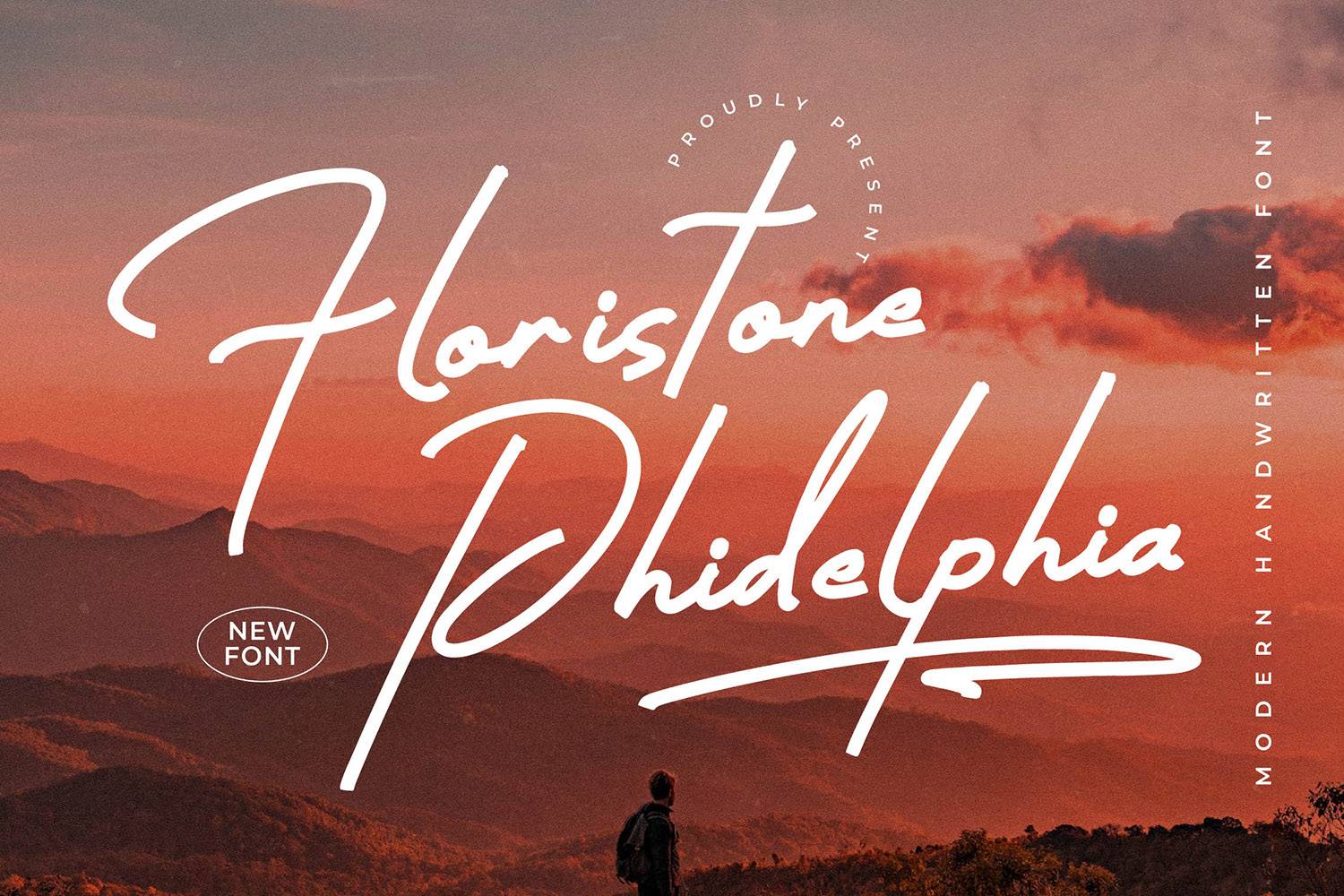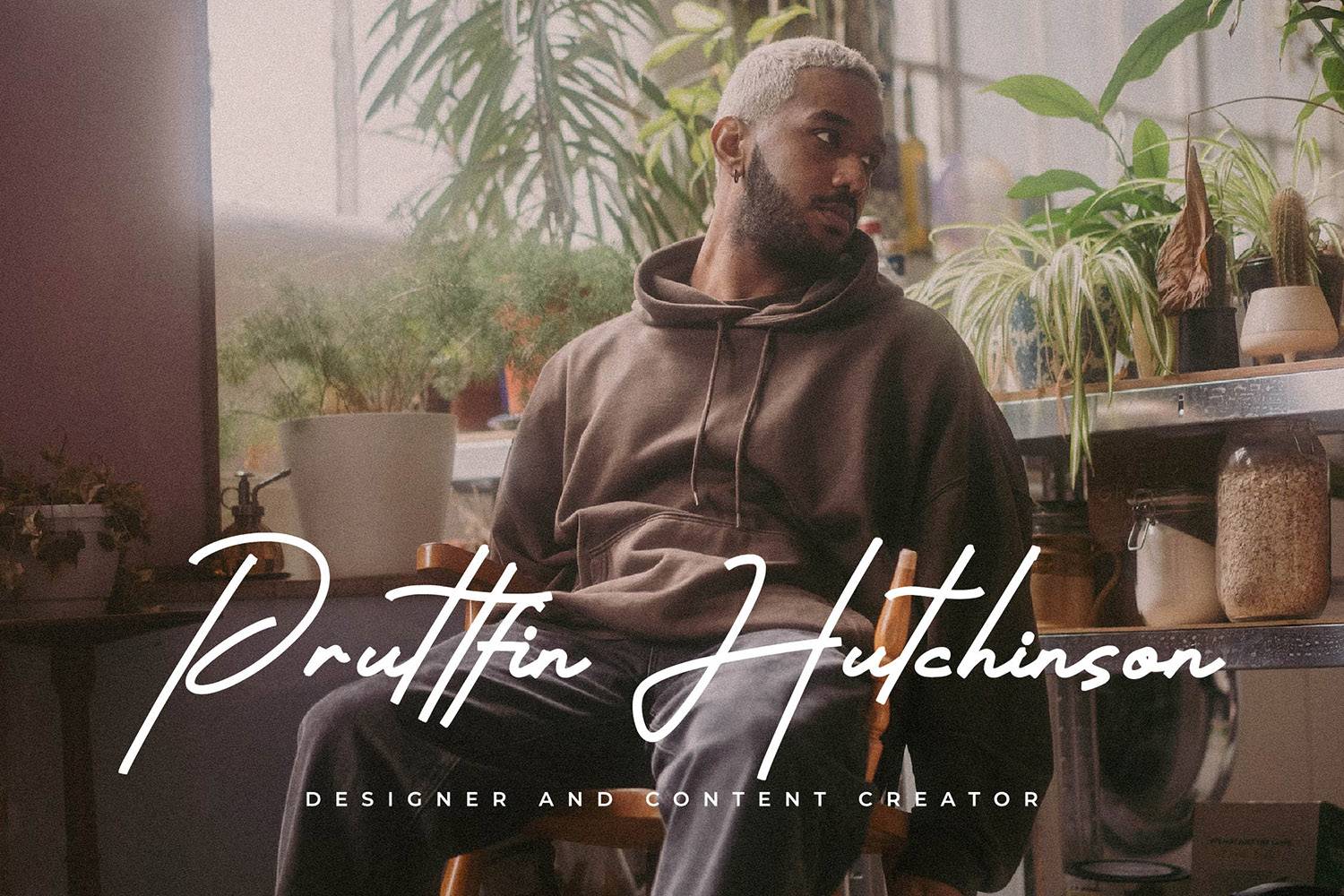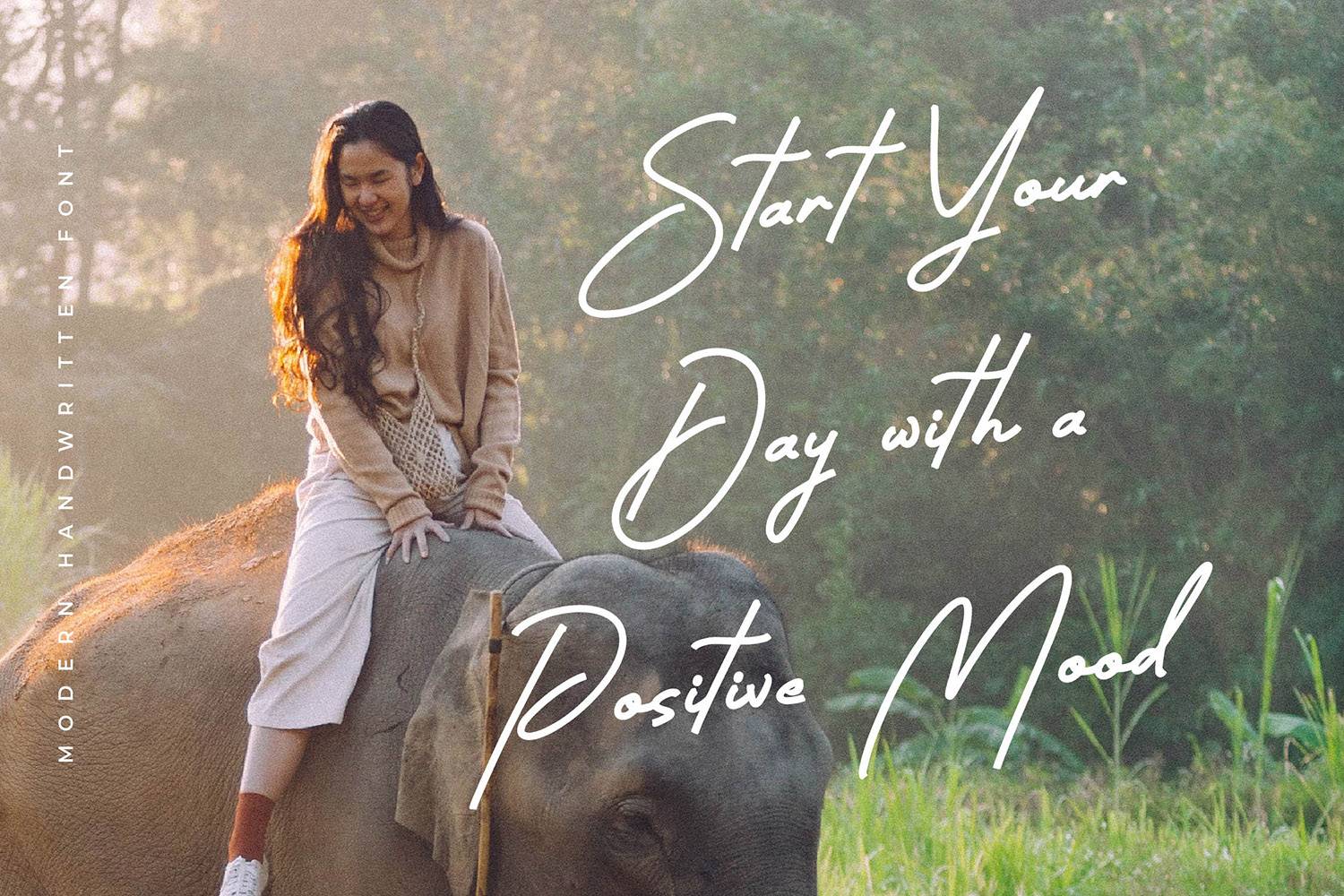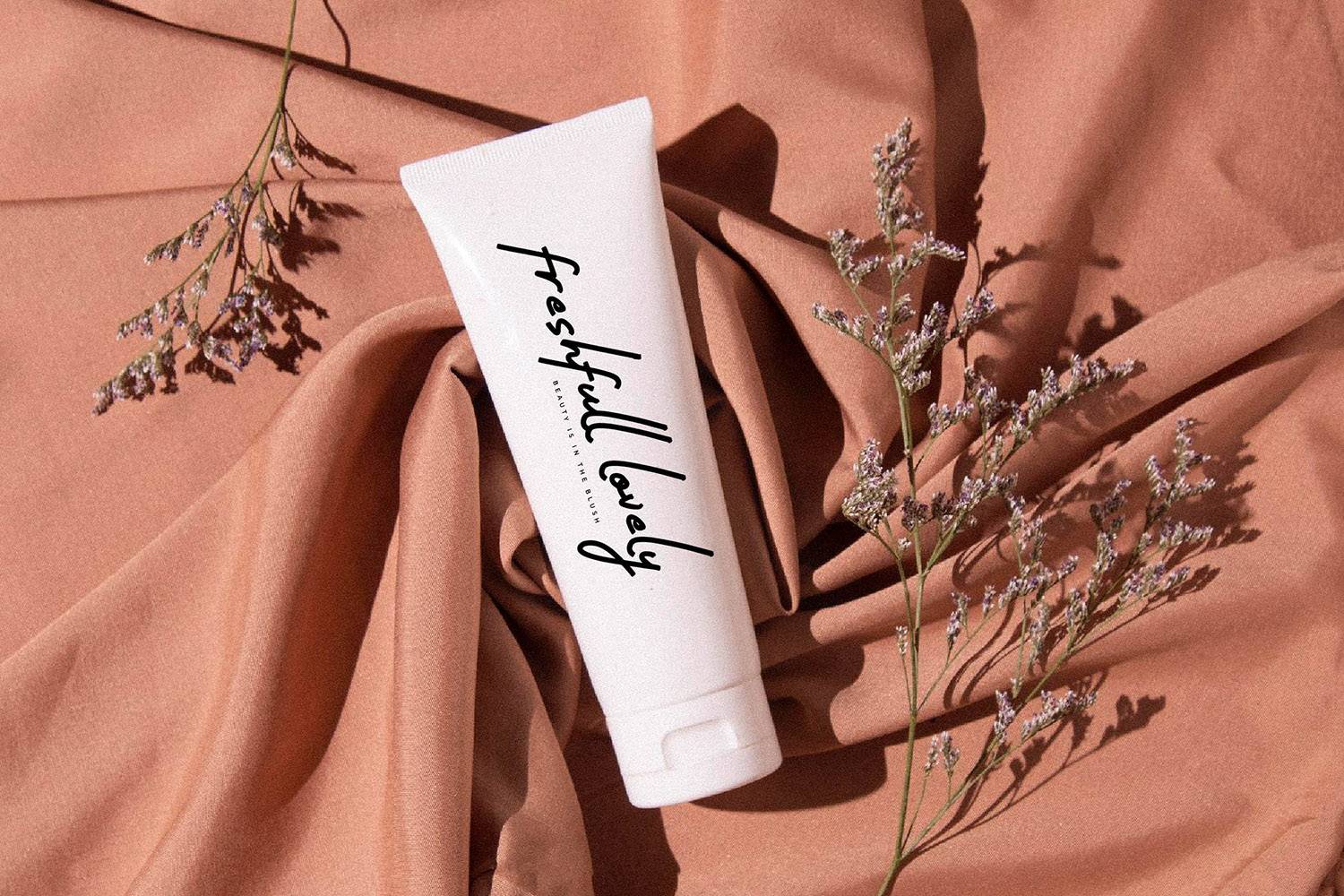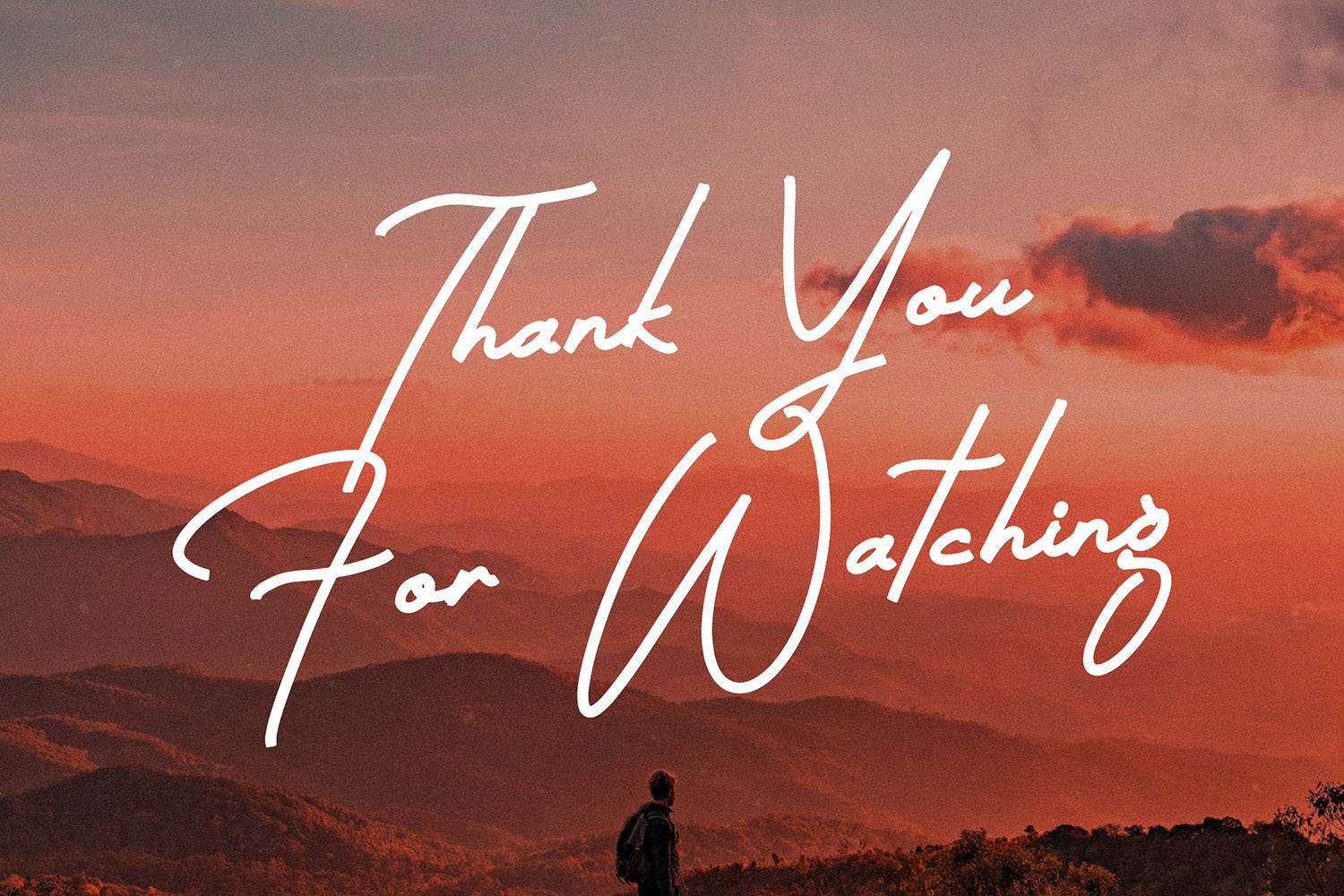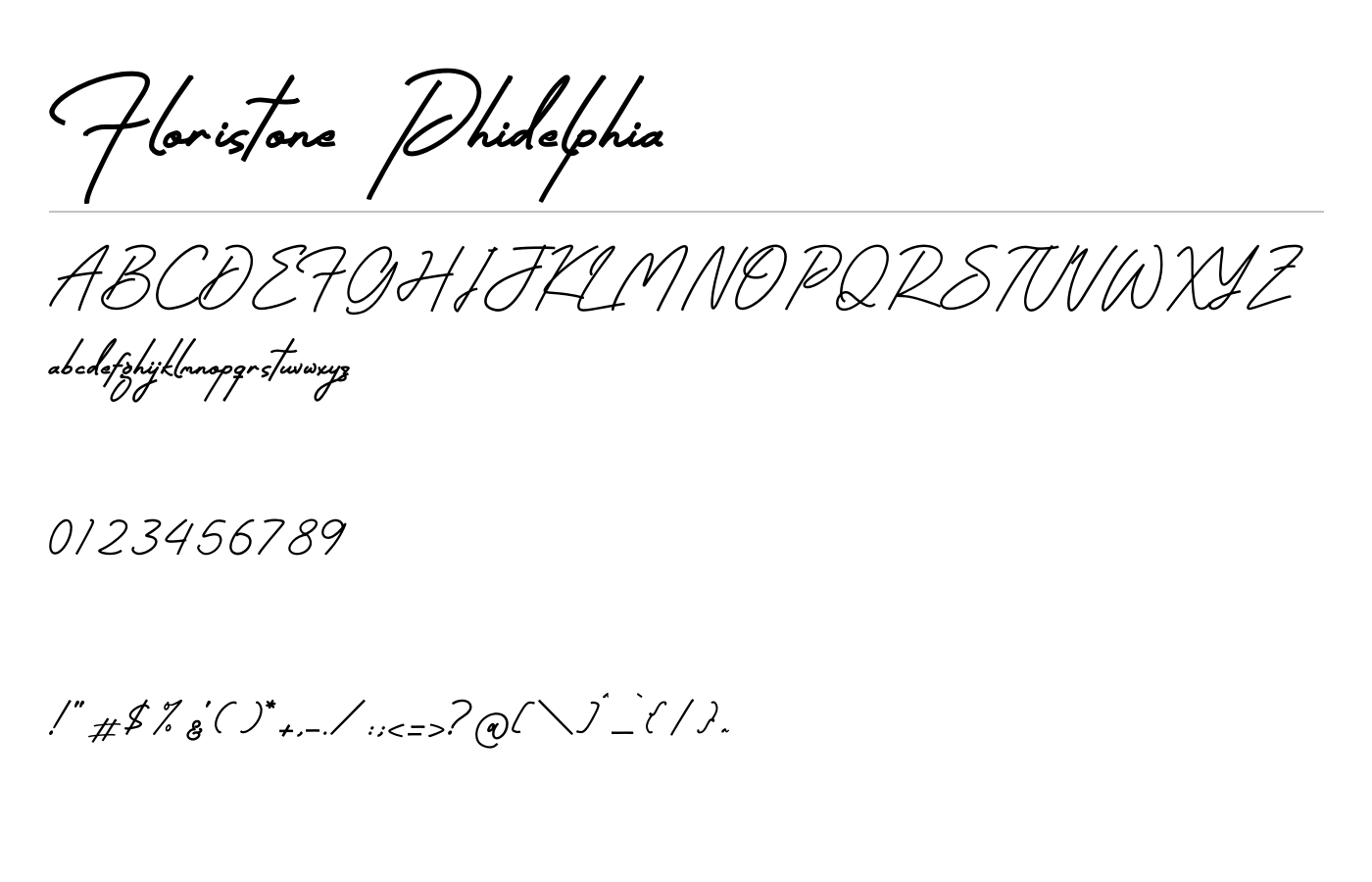
Floristone Philadelphia is an elegant, handwritten script font with a delicate, light weight and smooth, flowing strokes that convey a personal and artistic touch. Its tall, slender letterforms and balanced spacing make it ideal for sophisticated branding, invitations, and creative projects that seek a refined yet approachable style. This font shines in contexts where a stylish, modern handwritten look is desired, offering both charm and readability.
Floristone Phidelphia Font
About Floristone Phidelphia Font